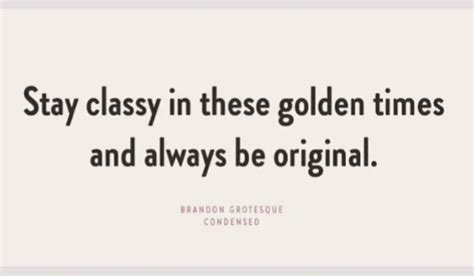
Brandon Condensed Font: A Typographic Powerhouse
Hey design enthusiasts! Today, we’re diving deep into a font that’s been making waves in the design world: Brandon Condensed Font . If you’re all about making your designs pop, stand out, and communicate clearly, then this font is definitely one you need in your toolkit. We’re going to unpack why Brandon Condensed is so awesome, where you can use it, and how it can seriously level up your projects. So grab a coffee, settle in, and let’s get started!
Why Brandon Condensed Font is a Go-To Choice
Alright guys, let’s talk about what makes Brandon Condensed Font such a fan favorite. First off, it’s all about that superb versatility . This isn’t a font that’s going to pigeonhole you into one specific style. Whether you’re designing a sleek, modern website, a bold, impactful poster, a minimalist brand identity, or even a quirky little invitation, Brandon Condensed can handle it. Its condensed nature means it’s incredibly space-efficient, which is a massive win in today’s crowded digital and print landscapes. Think about it – you can pack more information onto a single line without making it look cramped or hard to read. That’s pure design gold, right? The clean lines and geometric influences give it a contemporary feel that just works . It’s not overly fussy, it’s not trying too hard, it just presents information with a confident, stylish flair. We’re talking about a font that strikes a beautiful balance between being highly legible and aesthetically pleasing. Even in its thinner weights, it maintains a strong presence, and in its bolder variations, it commands attention without being obnoxious. This range is crucial for designers who need to create hierarchy and visual interest within their layouts. You can use a lighter weight for body text and then switch to a heavier, condensed version for headlines, creating a dynamic contrast that guides the viewer’s eye. Plus, the sheer number of weights available means you have an incredible amount of control over your typography. From delicate thin styles to commanding black weights, you can craft nuanced typographic systems that feel cohesive and professional. It’s this attention to detail and the thoughtful construction of the typeface family that truly sets Brandon Condensed apart.
Exploring the Design Characteristics of Brandon Condensed
Now, let’s get a little more granular and chat about the actual look and feel of Brandon Condensed Font . What sets it apart visually? Well, it’s built on a foundation of geometric shapes , giving it a modern and clean aesthetic. You’ll notice the influence of classic sans-serifs, but with a distinct contemporary twist. The letters are well-proportioned, and the overall construction is solid and dependable. One of the most striking features, of course, is its condensed nature. This means the letters are narrower than a standard typeface, allowing for more characters to fit within a given space. But here’s the kicker: it achieves this without sacrificing readability. The counters (the enclosed or partially enclosed negative space in a letter) are open, and the x-height is generous, ensuring that even at smaller sizes, the text remains clear and easy to scan. This is absolutely crucial for usability, especially on screens where users are often in a hurry. The terminals (the end of strokes) are typically straight or have a slight angle, adding to its crisp, no-nonsense appeal. This subtle detail contributes to its overall sense of order and precision. When you compare it to other condensed fonts, Brandon Condensed often feels more approachable and less severe. It manages to be impactful and attention-grabbing without feeling overly aggressive or industrial, which can sometimes be a downfall of other condensed options. The subtle curves and slightly rounded corners in some variations add a touch of warmth, making it adaptable for a wider range of applications than you might initially expect. This thoughtful design means it doesn’t just look good; it performs well across various media. Whether it’s used for massive headlines that need to grab attention from across a room or for small bits of text that need to be perfectly legible on a tiny mobile screen, Brandon Condensed rises to the occasion. It’s the kind of font that makes you feel confident in your design choices because you know it’s going to deliver on both form and function. The designers have really nailed the sweet spot between personality and practicality, giving you a typeface that’s both expressive and incredibly robust. It’s a true workhorse that happens to look incredibly stylish while doing its job. The attention to detail in the letterforms, the subtle nuances that differentiate its various weights, all contribute to a rich typographic experience that designers can rely on time and time again. It’s not just a font; it’s a carefully crafted tool for communication.
Where to Use Brandon Condensed Font: A Versatile Champion
So, you’ve got this awesome font, but where does it actually shine? The beauty of Brandon Condensed Font lies in its incredible adaptability . Seriously, guys, the possibilities are almost endless. Let’s break down some prime spots where this condensed gem truly excels:
• Web Design: In the digital realm, space is often at a premium. Brandon Condensed is a lifesaver for websites, especially for headlines, navigation menus, and call-to-action buttons. Its condensed nature means you can fit more text onto a limited screen real estate without making it look cluttered. Imagine a hero banner with a punchy headline – Brandon Condensed will make it impactful. Or think about a complex data visualization where you need to label many points concisely; this font is your best friend. It maintains excellent readability even at smaller sizes, which is vital for mobile-first design.
• Branding and Identity: Need to create a strong, modern, and memorable brand? Brandon Condensed is your guy. It works wonders for logos, business cards, and corporate stationery. Its clean, geometric aesthetic conveys professionalism and sophistication. Whether your brand is tech-focused, luxury, or minimalist, the font can be tweaked through its various weights to match the precise tone you’re aiming for. A bold, heavy weight can signify strength and stability, while a lighter weight might suggest elegance and innovation. It’s the kind of font that can form the backbone of a cohesive visual identity system.
• Editorial Design: Magazines, newspapers, and books can all benefit from the clarity and impact of Brandon Condensed. Use it for strong headlines that pull readers in, subheadings that structure content, or even captions where space is tight. Its ability to pack a visual punch makes it ideal for grabbing attention on a busy magazine cover or for creating a clear hierarchy of information within a dense article. You can create dynamic layouts by pairing different weights of Brandon Condensed, leading the reader through the content with ease.
• Advertising and Marketing: For posters, flyers, social media graphics, and ad copy, Brandon Condensed is a powerhouse. Its condensed form naturally draws the eye, making headlines and key messages impossible to ignore. Need to convey urgency or excitement? A bold, condensed headline does just that. It’s perfect for short, impactful statements that need to resonate quickly with an audience. Think about event posters where you have a lot of information to convey – artist names, dates, venues, ticket info – Brandon Condensed helps you organize it all without looking messy.
• UI/UX Design: In user interface design, every pixel counts. Brandon Condensed’s space-saving qualities are invaluable for creating clean, functional interfaces. It helps maintain readability in menus, labels, and form fields, improving the overall user experience. Especially when designing for different screen sizes, the ability to condense text without losing legibility is a huge advantage. It allows for more information to be presented clearly, reducing the need for excessive scrolling or complex navigation.
• Packaging Design: When designing product packaging, you often have limited space to convey essential information like product names, ingredients, and branding. Brandon Condensed allows you to present this information clearly and attractively, ensuring your product stands out on a crowded shelf. The clean lines ensure that even small text remains legible, which is critical for compliance and customer information.
The Importance of Font Weights and Styles
One of the most significant advantages of the Brandon Condensed Font family is its extensive range of weights and styles. This isn’t just about having a few options; it’s about having a complete typographic toolkit at your disposal. We’re talking about everything from incredibly thin, almost delicate weights that can be used for subtle details or elegant headings, all the way up to robust, black weights that command attention and make a powerful statement. This variety allows for sophisticated typographic hierarchies within your designs. You can use a light weight for secondary text or captions, a regular weight for body copy, and then a bold or black condensed weight for your main headlines. This creates visual interest and guides the reader’s eye through the content in a structured and intuitive way. Moreover, the availability of italic styles in many of these weights further expands your expressive capabilities. Italics can be used for emphasis, to denote titles of works, or to add a touch of dynamism to your layout. The consistency across all weights and styles ensures that your branding remains cohesive, even when you’re using different variations of the font. You don’t have to worry about jarring shifts in character or style. It’s this meticulous attention to detail in the construction of the font family that makes Brandon Condensed such a reliable and powerful tool for designers. It empowers you to create complex, nuanced typographic compositions that are both aesthetically pleasing and highly functional. You can achieve a professional and polished look without needing to mix and match multiple font families, simplifying your workflow and ensuring a unified brand voice. Whether you’re designing a minimalist poster or a complex multi-page document, the Brandon Condensed family provides the flexibility and control you need to bring your vision to life with confidence. It’s the difference between just using a font and crafting with typography.
Tips for Using Brandon Condensed Effectively
Alright, so you’re ready to unleash the power of Brandon Condensed Font in your next project. Awesome! But like any great tool, knowing how to use it effectively is key. Here are some pro tips to make sure Brandon Condensed shines:
1. Don’t Overdo It: While it’s versatile, using too many weights or sizes of Brandon Condensed in a single design can get chaotic. Stick to a clear hierarchy. Usually, a maximum of two or three weights is plenty for most projects. Think about pairing a bold headline with a regular weight for body text, and maybe a lighter weight for a subtle caption. Keep it clean, guys!
2. Pairing is Key: Brandon Condensed pairs beautifully with a wide range of other fonts. For a modern, clean look, try pairing it with a simple, geometric sans-serif. If you want a bit more contrast or a touch of elegance, a classic serif font can work wonders. Experiment to find what best suits your project’s vibe.
3. Consider Readability: Remember that while it’s designed for readability, extremely small sizes or very light weights might become challenging, especially for body text in long-form content. Always test your design at actual size and on the intended medium (print or digital) to ensure it’s comfortable to read.
4. Embrace the Space: Because Brandon Condensed is so efficient, it can be tempting to cram text together. Resist the urge! Give your typography room to breathe. Generous line spacing (leading) and letter spacing (tracking) can make even the most condensed text feel airy and sophisticated.
5. Leverage the Weights: Don’t just stick to one or two weights. Explore the full range! Use the heavier weights for maximum impact on headlines and the lighter weights for a more delicate feel. The variation within the family is one of its strongest assets.
By keeping these tips in mind, you can harness the full potential of Brandon Condensed Font and create designs that are not only visually striking but also highly effective and user-friendly. Happy designing!
Final Thoughts on Brandon Condensed Font
So there you have it, folks! Brandon Condensed Font is, without a doubt, a stellar addition to any designer’s arsenal. Its blend of modern aesthetics, exceptional readability, and incredible versatility makes it a standout choice for a vast array of projects. From sleek digital interfaces to bold print advertising, this font delivers impact and clarity in spades. We’ve seen how its geometric underpinnings, combined with its space-saving condensed form, create a unique typographic character that’s both strong and approachable. The extensive range of weights and styles further empowers you to craft sophisticated typographic hierarchies and maintain brand consistency across different applications. Remember to use it thoughtfully, pair it wisely, and always prioritize readability. When wielded correctly, Brandon Condensed Font isn’t just a typeface; it’s a powerful tool for communication that can elevate your designs from good to absolutely unforgettable. So go ahead, give it a spin, and watch your projects transform. You won’t be disappointed, guys!